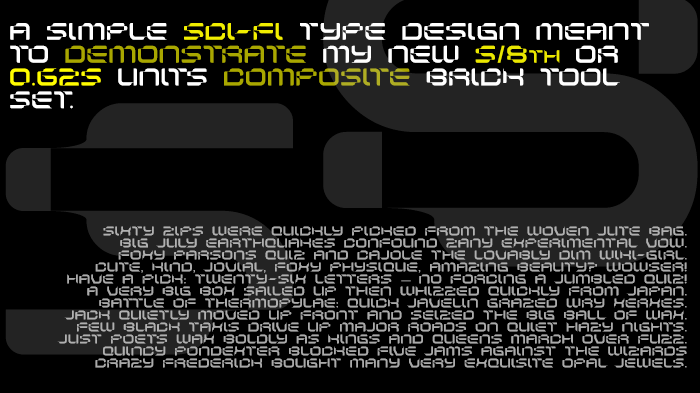
• A simple typeface I designed to demonstrate my new 5/8th composite brick tool set.
I was hoping you'd create the full font. A unique looking original font. Very creative.
Fav letters are B,S,2,S. Least fav are C,I,V,X and Z as it's the same as the 2. Good work.
Of all people, you were about the last I'd expected to get this kind of comment from.
So, about this work, since I never intended to make this a full font it is still far from complete. But since it got more interesting than I had first intended, I will most likely add more characters within the following days.
Edit:
For 'V' I couldn't come up with a smooth yet curved solution like the other glyphs. I will crack my head over a better solution for this tho!
I will try to rethink 'C, I and X' as well. For 'Z' I already see a number of different solutions
Maybe the 5 can be a 2 flipped upside down...
Can you create a 7/8th brick set and make a font with those bricks...
2x2 filters?
@7:  Yes, filters are 2x2 and  0.75x0.75
UPDATE:
Both 'C,c' replaced with alternative. I placed a alternative 'i' in the lowercase slot. I did the same thing with 'X', but here the alternative glyph is located in the uppercase slot. I slightly tweaked 'V,v' as well but I doubt its even remotely noticable. Than I replaced 'Z,z' with alternative solution. And as last I partially redrawn '5' rather than copying or flipping another glyph.
So as you can see I kept the previous glyph versions for the letters I'm still not sure about (Y and X)
updated letter V as well.
Looks awesome!
this feels familiar
Yep the S from that (originally made for a Audi magazine) typeface was also used for the logo from (don't ask me which) company, but more less made me make those custom brick set in the first place!
STRIKE OUT!! I thought it was a bit too good to be true. I wish you'd have said what it's based on, instead treating everyone like an idiot. Bangs head on desk!
C'mon, apart from what I said, inpspired you're not gonna say this is a ripoff right?
I mean when you gonna look at this that way you can lead back nearly every typeface back to something, and you don't see guy's like Nick Curtis or Rian Hughes say whatever every single one of their designs was based on, right? Like I said, the concept was taken from that one letter "S" and everything else was done from my own point of view. As much as you wanna argue its not, that's fine, but your problem! To me they are pretty different.
If you'd put in the description that is was based on just the letter 'S' (which I don't believe for a second.) smells more like BS, then I would not have said "A unique looking original font.... very creative" in my first comment to you. Can't you understand that is what is so frustrating about 99.9% of your fonts! Everyone knows you are simply copying or interpreting somebody elses work. I use the term 'interpreting loosely, as usually your fonts only change from the way the original fonts looks, because of Fontstruct restrictions, and not because you're being 'creative'!
You have described this particular font as a "simple typeface I designed" when clearly it is not. You should have put .... It's based on this letter 'S' from an Audi magazine, and uploaded a jpg of it, so we can all see how you've interpretted it.
.... and just so you know Rian Hughes has a whole section in his book explaining exactly where the ideas for, or what his fonts were influenced by. With a keen eye for all things font related it shows numerous photos of old signage he took from his travels around the world.
I'm not saying don't copy, as that's how we learn to do anything.
THE TRUTH WILL ALWAYS OUT. SO PLEASE STOP THE BULLSHIT.
Play the game properly, and we will all get along. :)
As a matter of fact I saw this Audi magazine font once a pretty while back and after that I never saw it ever again pal. So in other terms I have never peeked at it once while making this. And about Rian (don't get me wrong here I respect the guy) I couldn't give a F* less about if he flew around the world due to his book. this didn't came upfront, but after he became a well established designer. But I'm not gonna argue if this is right or wrong. I'm just saying I didn't do a whole lot different than the majority of designers have done before me. Maybe one day when I have enough followers
Another thing you're saying which is complete BS is that my fonts usually only differ from the original font because of Fontstruct restrictions, and not because I was being 'creative'. Let's start with simply this one for example. I could just as easily have copied that exact font, and do so pretty much dead accurate if I would've want to. So don't try to strengthen your arguement with nonsense.